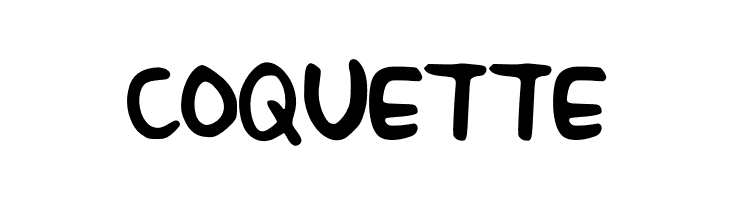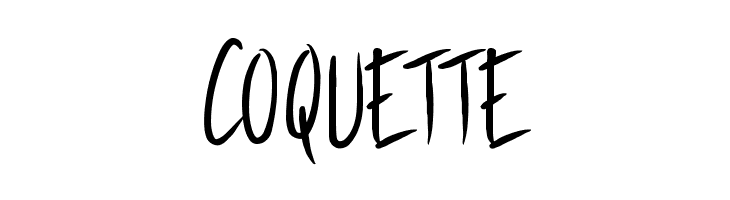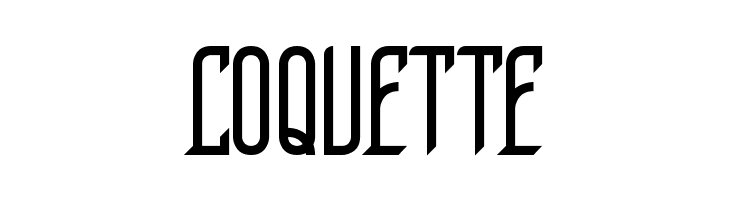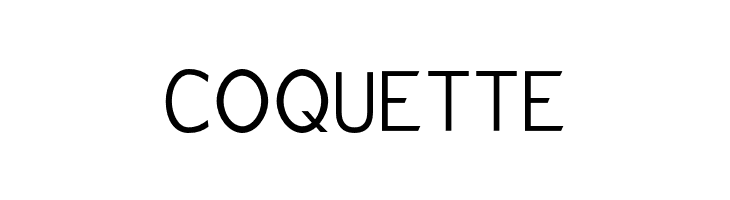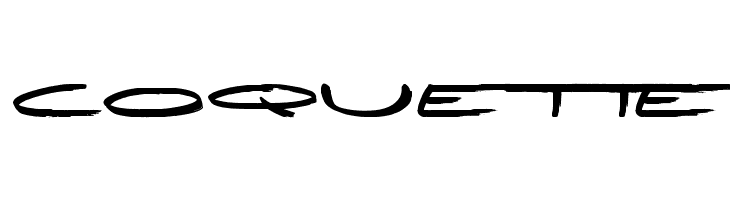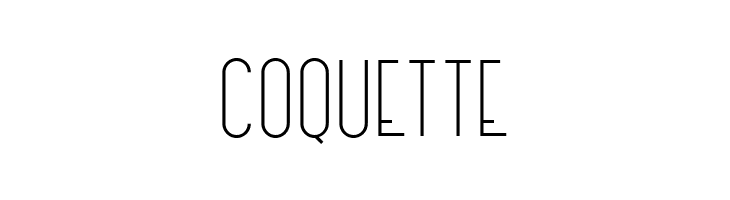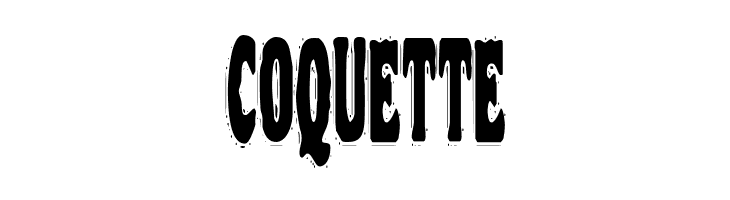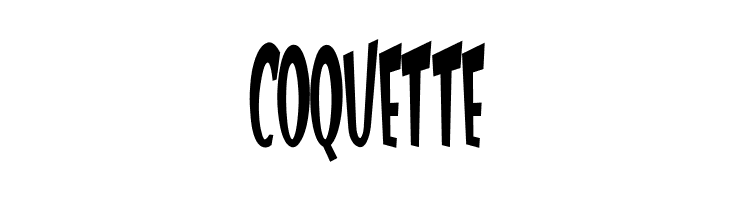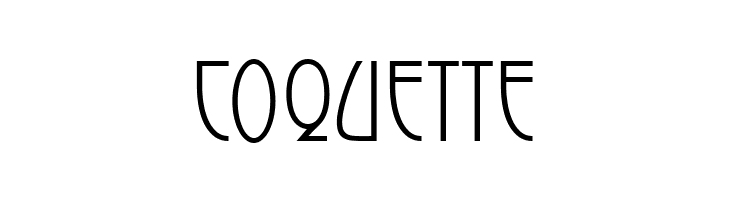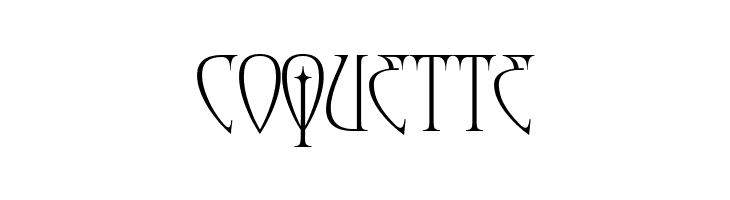
A bold, playful handwritten font with rounded, consistent strokes.
A dynamic handwritten font with fluid, elongated strokes and a lively slant.
A whimsical, hand-drawn font with thin, elongated strokes and a playful style.
A distressed, hand-drawn font with bold, elongated characters and tight spacing.
A dynamic, handwritten-style font with expressive, elongated characters.
A sleek, minimalist font with elongated, thin letterforms and a modern vintage appeal.
A decorative, distressed font with elongated, eerie letterforms.
A bold, dynamic font with elongated characters and a striking appearance.
An elegant, elongated font with Art Nouveau-inspired curves and fluidity.
A modern, art nouveau-inspired font with geometric shapes and elongated forms.
A mystical and elegant font with elongated, narrow letterforms and sharp serifs.
A whimsical, decorative font with elongated, narrow characters and playful embellishments.
A playful, hand-drawn font with elongated, irregular letterforms.
A whimsical, hand-drawn font with elongated, irregular strokes and playful elements.
A playful, handwritten font with elongated, thin strokes and a whimsical style.
A playful, paw-embellished font with thin, elongated characters.
A bold, modern font with elongated, narrow characters and a geometric structure.
An elegant, artistic script font with flowing, elongated lines and a calligraphic style.
A dramatic, gothic-inspired font with elongated, sharp strokes.
A whimsical, artistic font with elongated, playful letterforms and unique spiral elements.
A bold, elongated font with a distressed, hand-drawn style.
A sleek, futuristic font with elongated, geometric letterforms.
A modern, elongated font with narrow letterforms and a sleek design.
A futuristic, sleek font with elongated, geometric letterforms.
A modern font with geometric influences and elongated strokes.
A bold, playful font with rounded and elongated elements, ideal for creative projects.